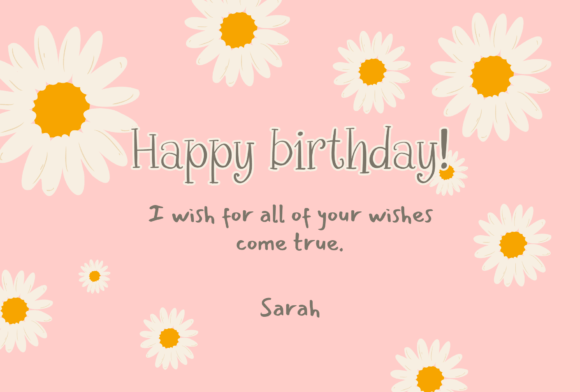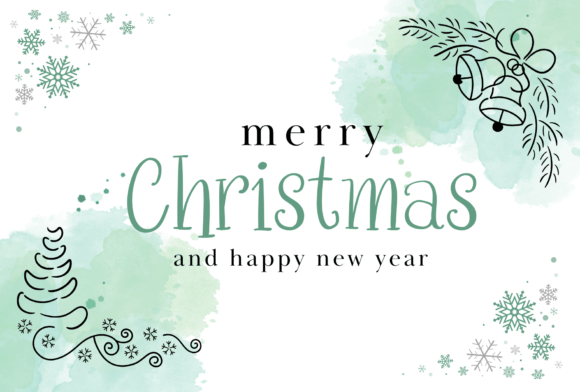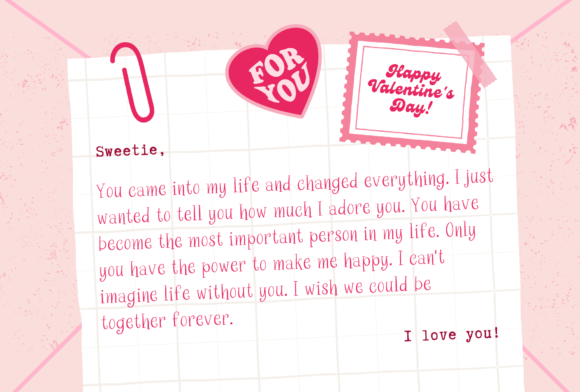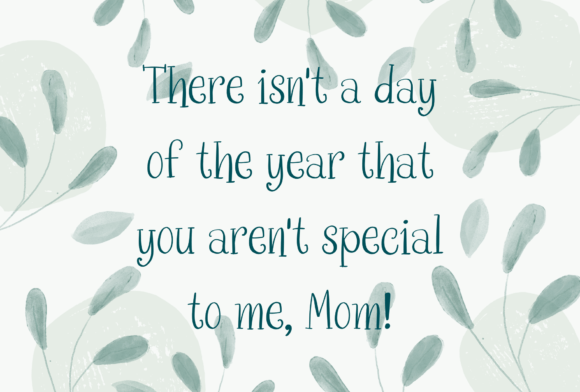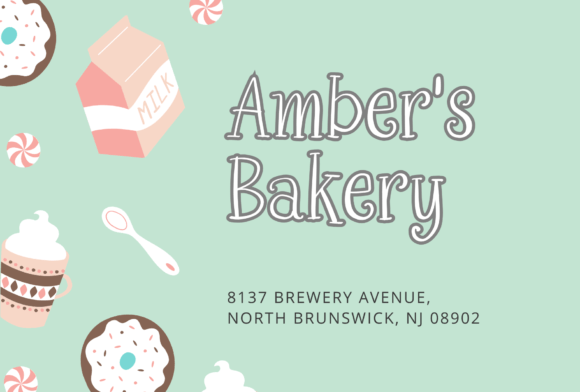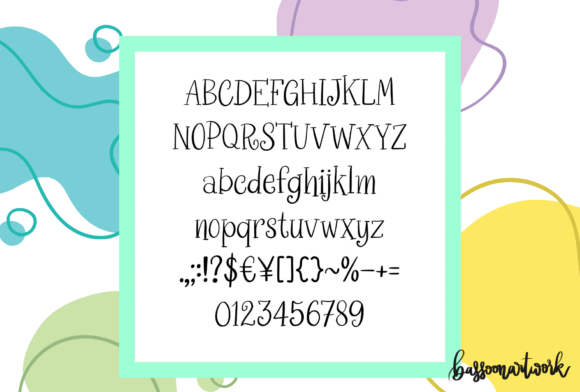
Introduction to Creative Girl Font
Have you ever been brainstorming ideas for a creative project, only to be struck by the perfect concept? That rush of excitement and inspiration is what drives us as designers. For me, it’s often sparked by discovering a new design resource that perfectly captures the essence of my vision. And that’s exactly what happened when I stumbled upon the Creative Girl Font.
This beautiful, handwritten font has quickly become a staple in my design toolkit. With its natural, unique style, it’s incredibly versatile and can be used in a wide range of creative projects. Whether you’re working on a personal project or a professional design, the Creative Girl Font is sure to add a touch of warmth and personality to your work. And the best part? It’s available for free download, making it an accessible design resource for designers of all levels.
As a high-quality font with a transparent background, the Creative Girl Font is perfect for designers who want to add a little extra something to their designs. Its value lies in its ability to bring a project to life and make it truly special. So, let’s dive in and explore the world of Creative Girl Font and discover all the amazing things you can create with it.
Key Features of Creative Girl Font
- High-quality design: The Creative Girl Font is designed with precision and attention to detail, ensuring a professional look for your creative project.
- Transparent background: This font features a transparent background, making it easy to use as a design resource and allowing for seamless integration with any background.
- High-resolution design: The Creative Girl Font is designed at a high resolution, ensuring crisp and clear text even when enlarged or used in large-scale designs.
- Unique characteristics: The font features a playful, cursive script with a mix of uppercase and lowercase letters, making it perfect for adding a touch of personality to your creative project.
Honest Review: Creative Girl Font
I recently had the chance to work with the Creative Girl Font, and I must say it’s been a great addition to my design resource library. ✨ I downloaded it for free, which was a bonus, and was immediately drawn to its playful, whimsical feel.
- High Quality: The font is incredibly detailed and has a beautiful, smooth texture that adds to its overall charm.
- Transparent Background: This feature has been a game-changer for me, allowing me to easily incorporate the font into my creative projects without worrying about any background distractions.
However, I did encounter a few limitations while working with the font. ⚠️ The font doesn’t support as many languages as I would have liked, which can be a challenge for projects that require multilingual support. Additionally, the font can be a bit too playful for more formal designs, so be mindful of the tone you’re aiming to convey.
Overall, I’m really impressed with the Creative Girl Font and would highly recommend it for any creative project that requires a high-quality, unique font. Its free download and transparent background make it an incredibly valuable design resource.
The Creative Girl Font is ideal for various creative projects, including:
- Blog posts and articles
- Infographics and flyers